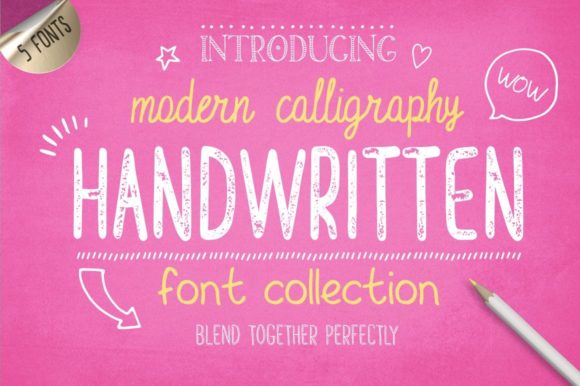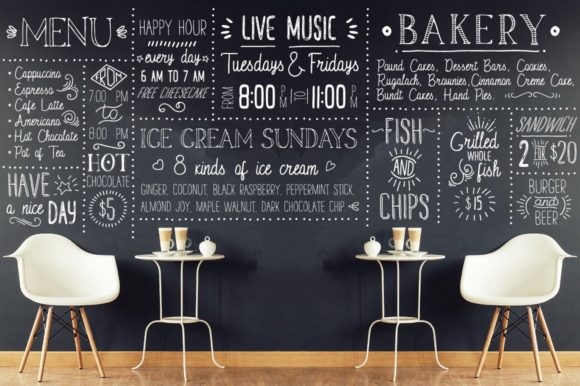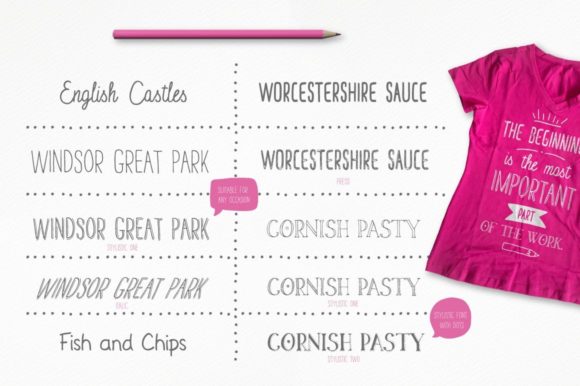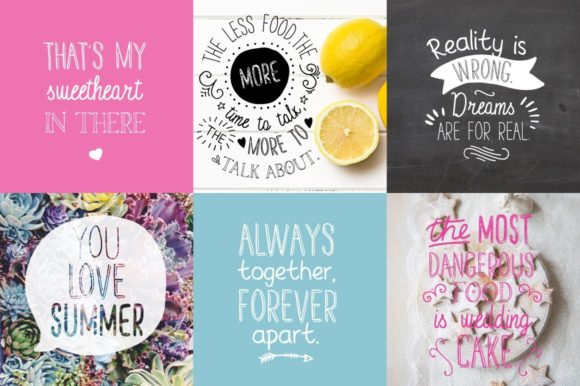
We are excited to introduce Handwritten Font Collection Font, a must-have typeface for any serious designer. Presenting the Handwritten Font Collection – It’s 5 hand-drawn fonts and 5 alternative styles. These handwritten fonts blend together perfectly and perfectly fit for any of your project.
English Castles: This sleek and slim Script Font perfectly combined with any other font in package.
Windsor Great Park: Hand drawn Uppercase Sans Serif Font.
Windsor Great Park Stylistic One: For this font I added a bit of volume.
Windsor Great Park Italic: The same volume but also and Italic.
Fish and Chips: Funny and cute handlettering font.
Worcestershire Sauce: Also manually created Uppercase Display Font.
Worcestershire Sauce Press: Perfect for writing on chalkboard.
Cornish Pasty: Hollow hand drawn Font.
Cornish Pasty Stylistic One: These strips… Add font on your poster.
Cornish Pasty Stylistic Two These points… Decorate with these font any card.
Hand Drawn Elements: 105 Free Elements. Created specifically for this package. To complement and complete your design.